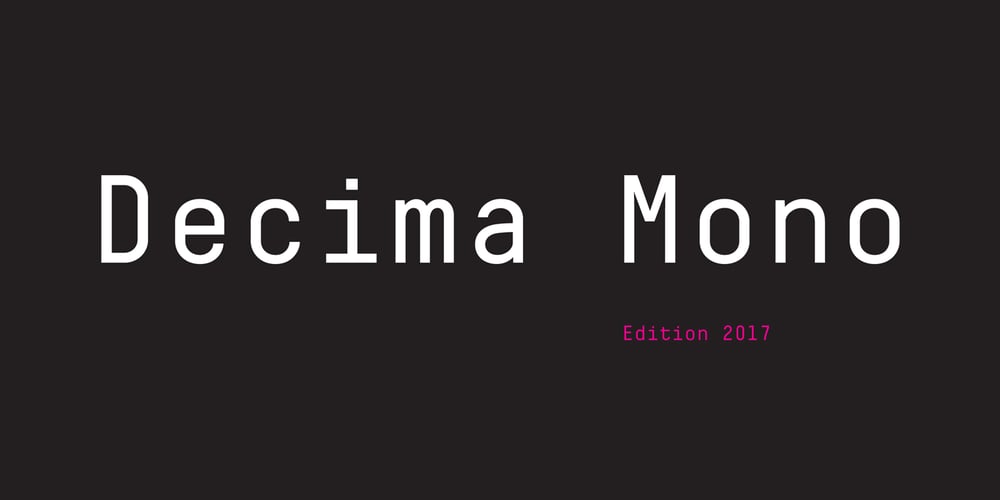
Decima Mono Font Family was designed by Ramiz Guseynov and published by TipografiaRamis. Decima Mono contains 12 styles and family package options. Decima Mono – condensed geometric monospaced Sans Serif typeface, released back in 2009 and quite successful ever since (MyFonts Rising Star, February 2009). This new edition is an upgraded version of Decima Mono and Decima Mono X, combining both into one edition. New version supports more Latin languages with an extension to glyph amounts. Also, six more alternate styles have been added to the original six styles.